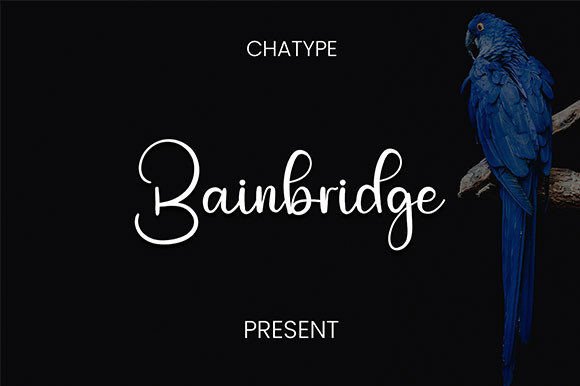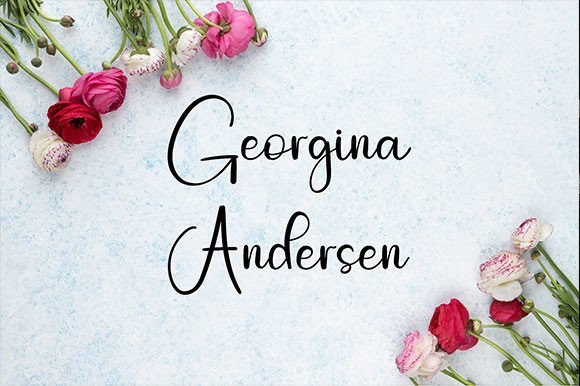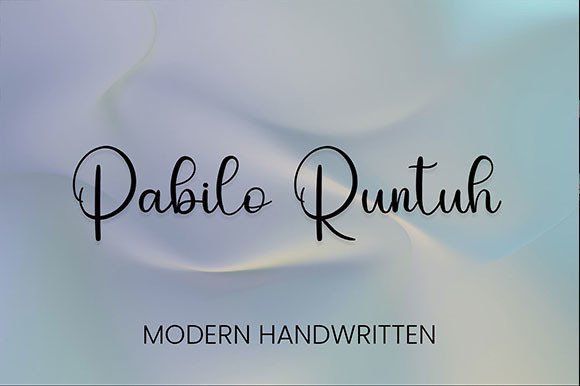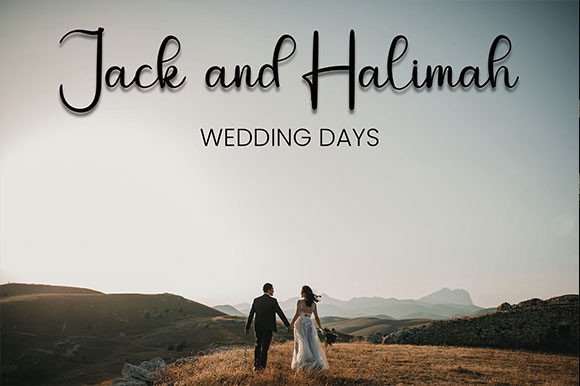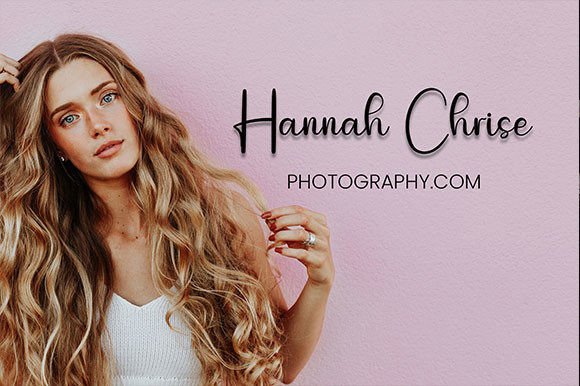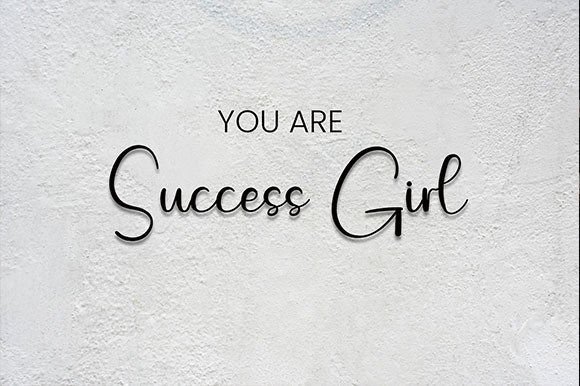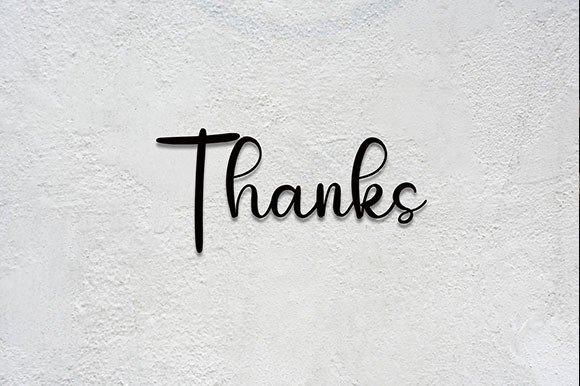
Bainbridge Font
About Bainbridge Font
Bainbridge is a casual and neat handwritten script font. Whether you’re using it for crafts, digital design, presentations, or making greeting cards, this font has the potential to become your favorite go-to font, no matter the occasion!